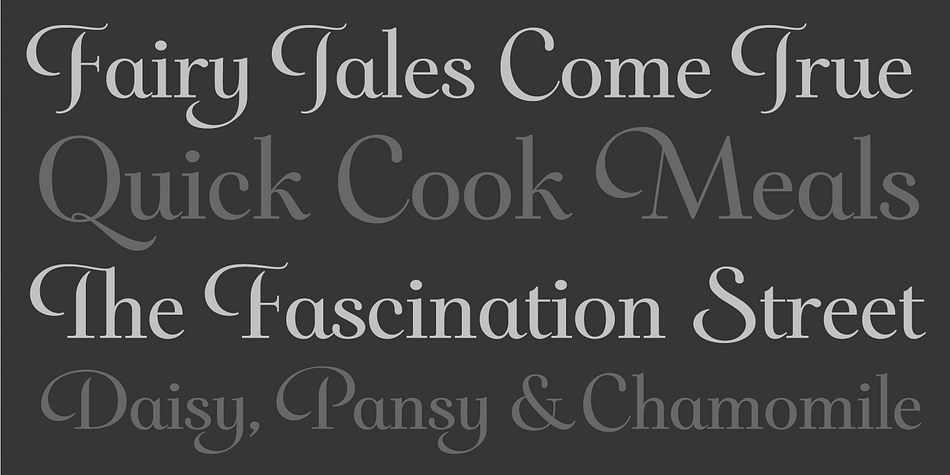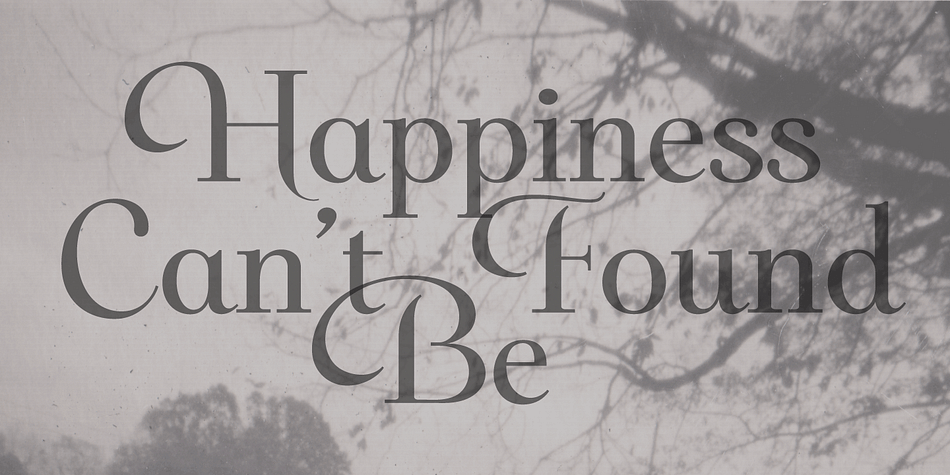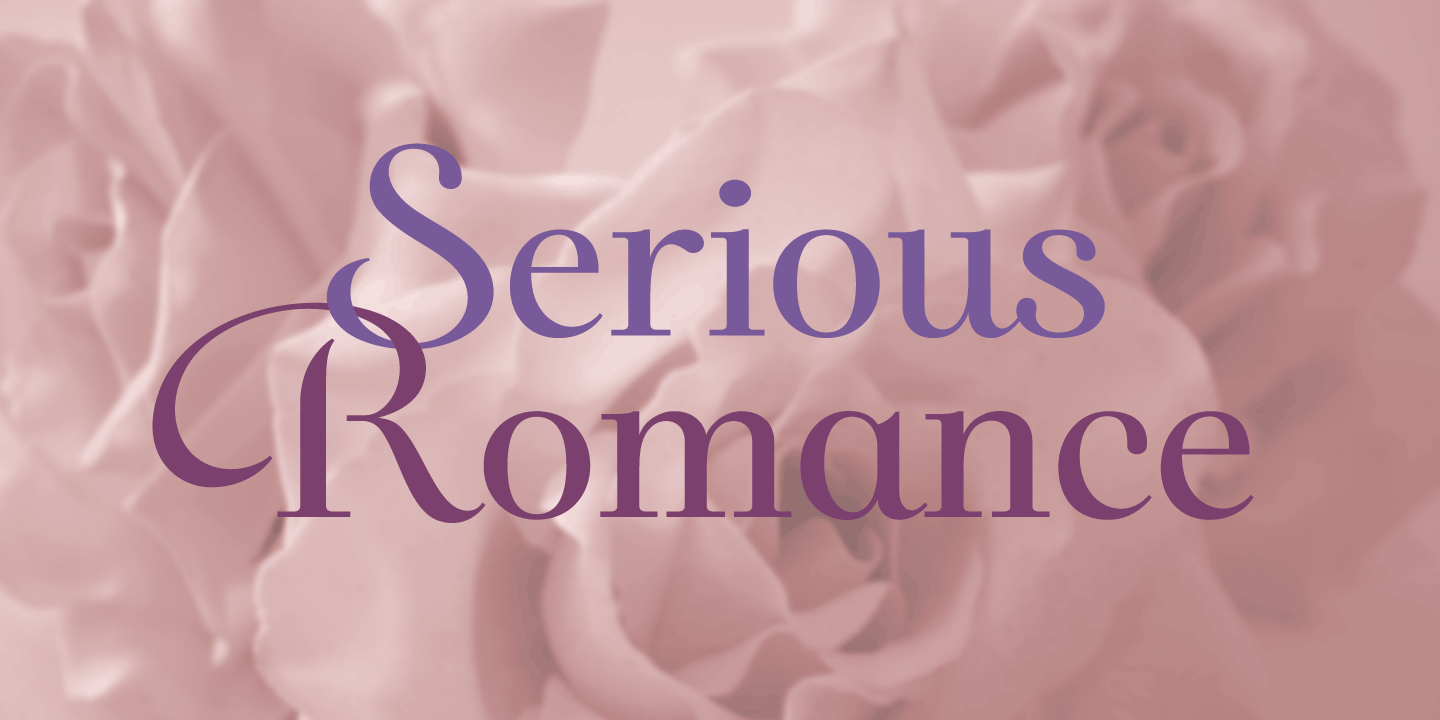
Darlena is a display serif font published by Jess Latham.
Darlena
Darlena is a highly ornate typeface that is perfect for grabbing attention. Influenced by Italian calligraphy from the late 1500’s with modern serifs thrown in.